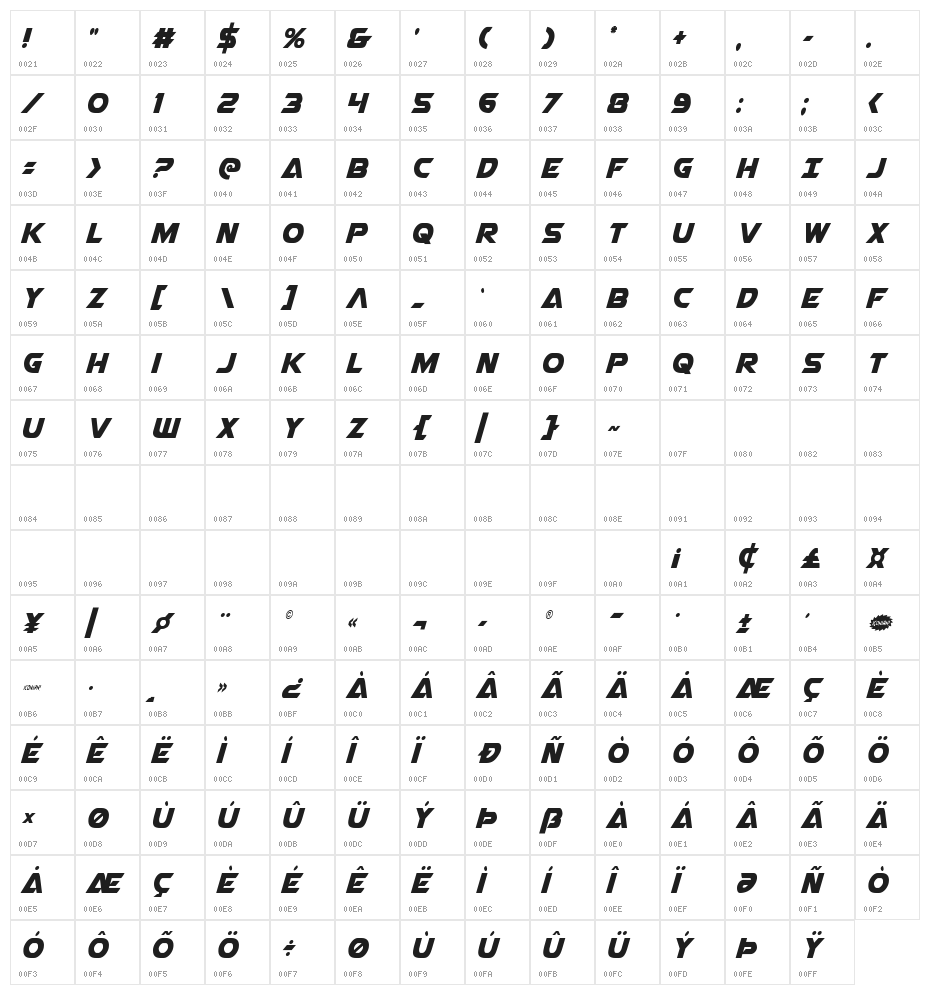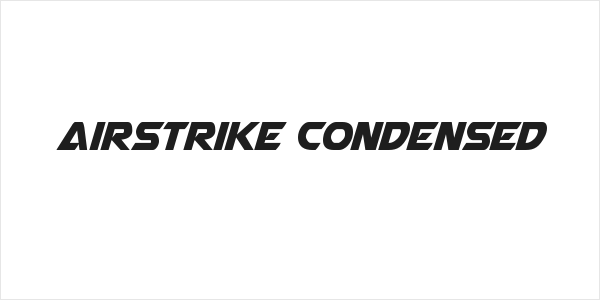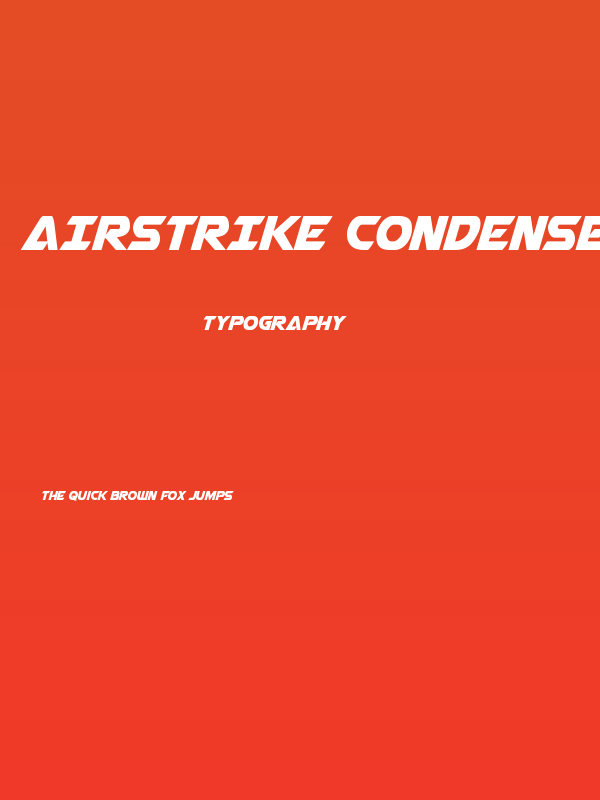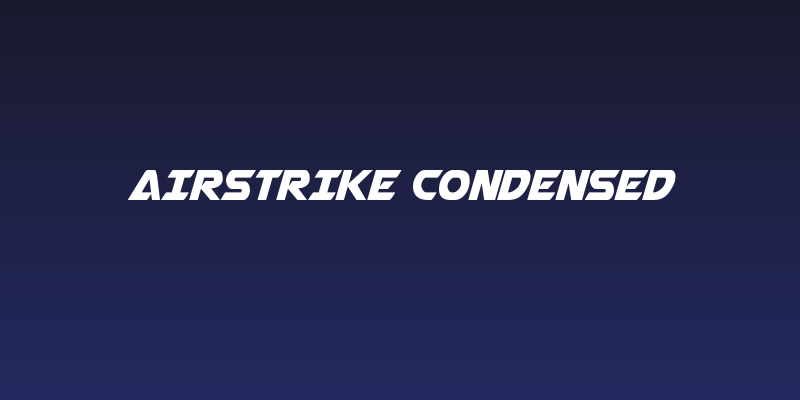
Airstrike Condensed Font
Airstrike Condensed Description
This font features a bold, dynamic style with a strong, angular design. The characters are sharply defined, with a forward-leaning slant that conveys a sense of motion and urgency. The condensed width of the letters allows for efficient use of space, making it ideal for impactful headlines and titles. The uppercase and lowercase letters maintain a consistent style, with the numerals and special characters following suit. The overall appearance is modern and assertive, suitable for projects that require a strong visual presence.
| Proposed Projects | Ideal for sports branding, action movie posters, dynamic advertisements, and modern logo designs. |